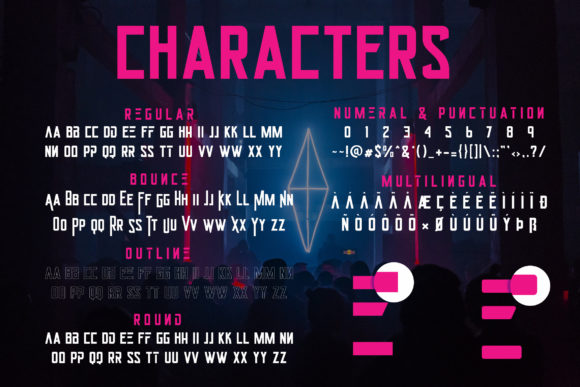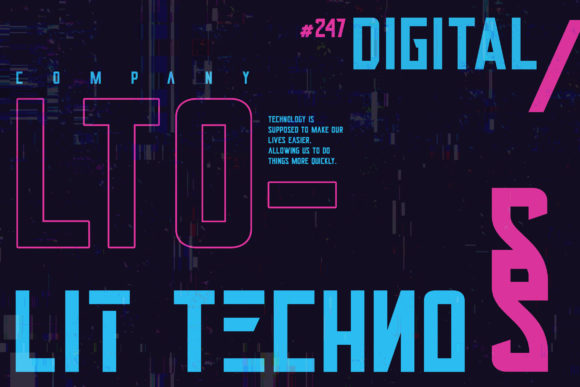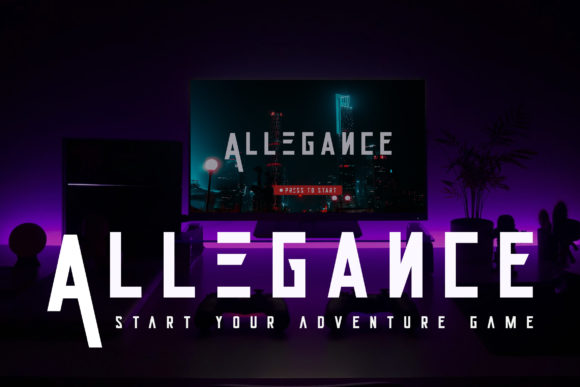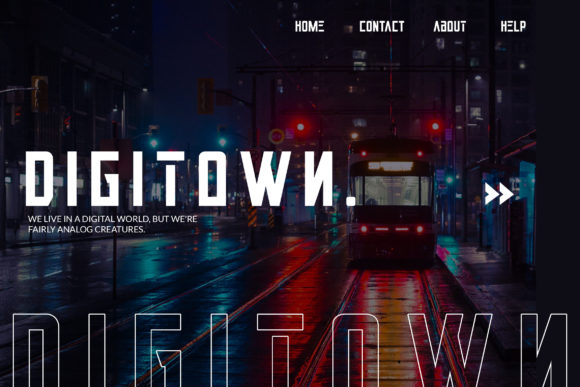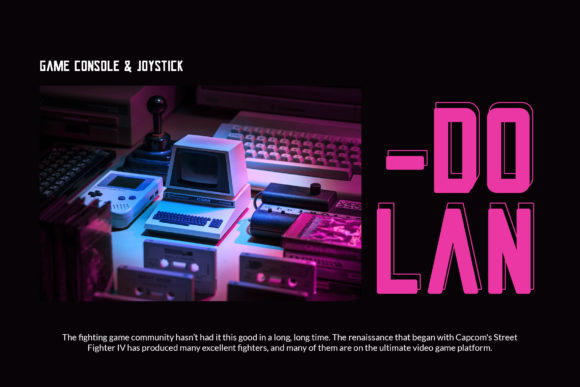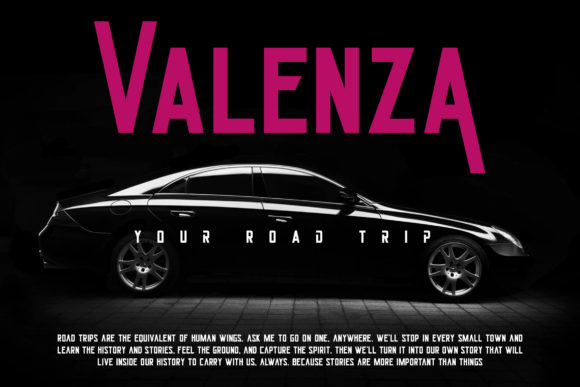
The Perfect Blend of Style and Innovation
Imagine you’re brainstorming a new project, and suddenly, a spark of creativity hits you. You envision a futuristic world where technology and design blend seamlessly together. The words start flowing, and you know exactly what you want – a bold, eye-catching font that screams innovation. This is where the Future Technos Font comes into play.
Future Technos Font is a sleek, robotic display font that’s perfect for designers who want to add a unique touch to their projects. Whether you’re crafting web designs, business cards, or anything else, this font is sure to make a statement. Its bold and futuristic style makes it an ideal choice for designers who want to stand out from the crowd.
With the Future Technos Font, you can give your designs a cutting-edge look that’s sure to impress. Its versatility and unique style make it a valuable addition to any designer’s toolkit.
Future Technos Font Key Features
- Font Family: Future Technos, a futuristic and technological sans-serif font
- Unique Characteristics: Geometric shapes, angular lines, and bold accents create a dynamic and modern look
- Font Weight: Offers various font weights, including light, regular, medium, bold, and black, for added design flexibility
Future Technos Font Review
I recently had the chance to work with the “Future Technos Font” and I must say it’s a mixed bag. On one hand, I love the ✨ futuristic vibe it gives to any design project. The font is sleek and modern, perfect for futuristic or sci-fi themed projects. The bold and thin weights also provide a nice contrast, making it easy to create visually appealing headings and text.
However, I do have some concerns with the ✨ legibility of the font, especially at smaller font sizes. The font can be a bit too condensed, making it difficult to read for some people. Additionally, the font doesn’t support many languages, which can be a limitation for international projects.
Here are some key points to consider:
- ✨ Unique and modern design
- ✨ Suitable for futuristic or sci-fi themed projects
- ⚠️ Limited language support
- ⚠️ Legibility issues at smaller font sizes
- ✨ Great for headings and titles
Overall, I would say the “Future Technos Font” is a good choice for projects that require a modern and futuristic feel. However, it may not be the best option for projects that require high legibility or support for multiple languages.
Getting the Most Out of the Font
For the best results, use the Future Technos Font with bold or italic text to create visual interest.
Experiment with different font sizes and colors to create a cohesive design.
The Future Technos Font is ideal for:
Designing futuristic and tech-related materials, such as infographics, posters, and presentations.
Creating a unique and modern brand identity.
Adding a touch of futurism to your designs.
Alternatives to Future Technos Font
The Future Technos Font is a futuristic and tech-inspired font, but there are other alternatives that designers can use depending on their project requirements.
1. Electrolize
Electrolize is a futuristic and high-tech font that is ideal for designing futuristic interfaces, sci-fi movies, and video games. It has a more aggressive and edgy feel compared to Future Technos Font, making it perfect for projects that require a bold and futuristic look. Use Electrolize when you need a font that screams “high-tech” and “futuristic.”
2. Glitch
Glitch is a distressed and glitchy font that is perfect for projects that require a retro-futuristic look. It has a more playful and experimental feel compared to Future Technos Font, making it ideal for designing video games, music albums, and futuristic websites. Use Glitch when you need a font that adds a touch of nostalgia and experimentation to your design.